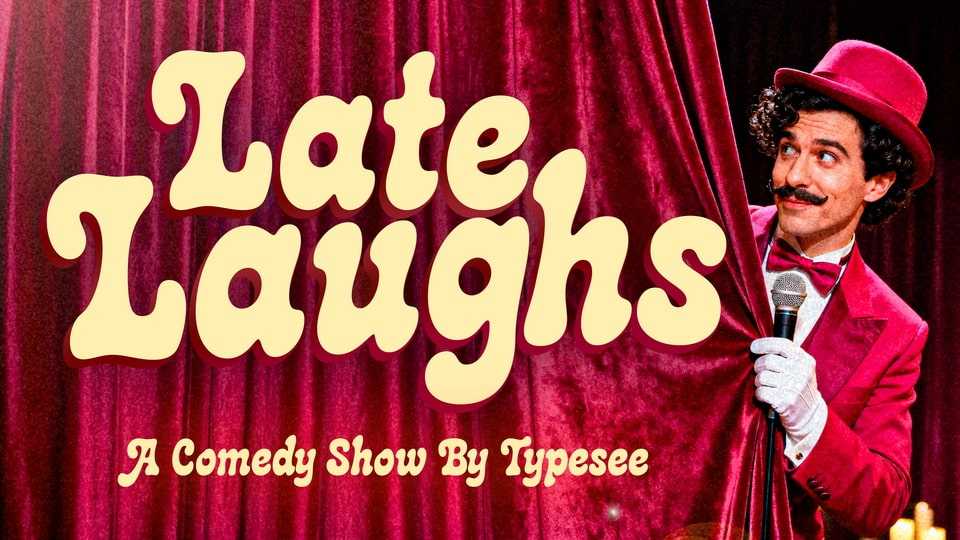
Download Late Laughs font, a bold and joyful retro display typeface designed to bring personality and humor into your projects, inspired by classic comedy clubs, vintage show posters.